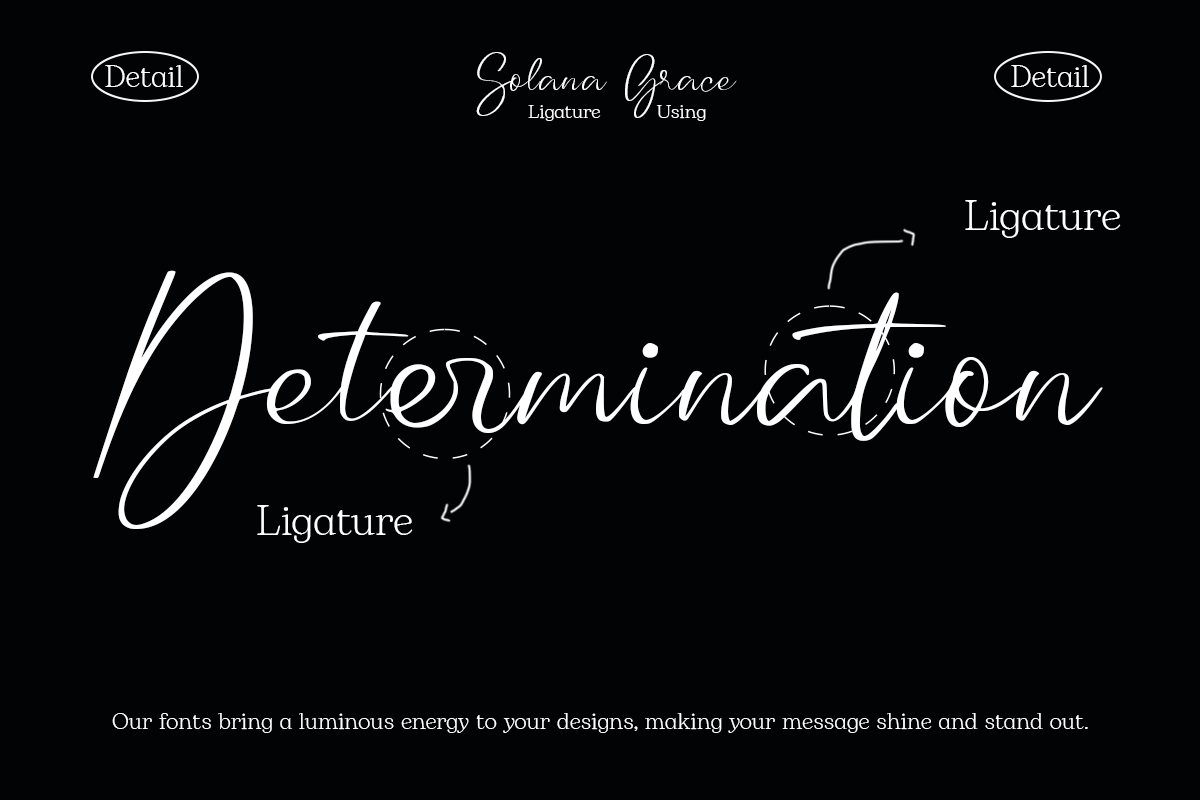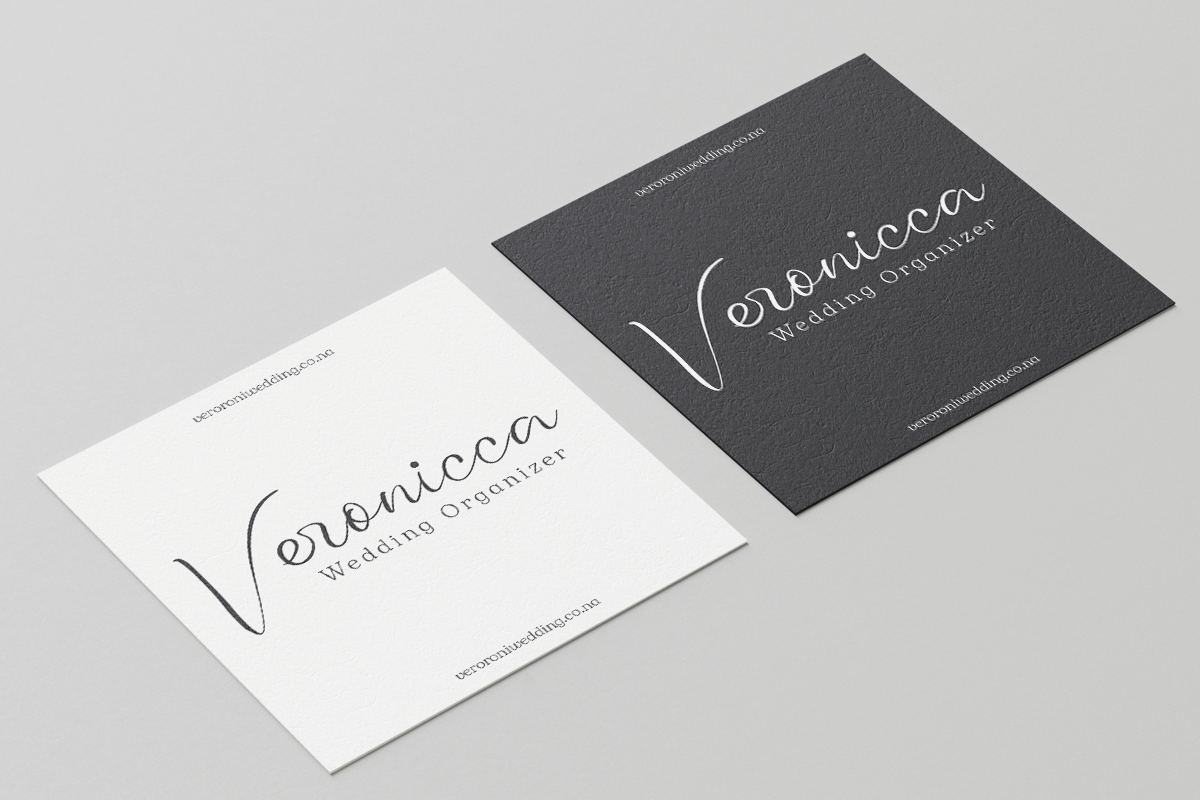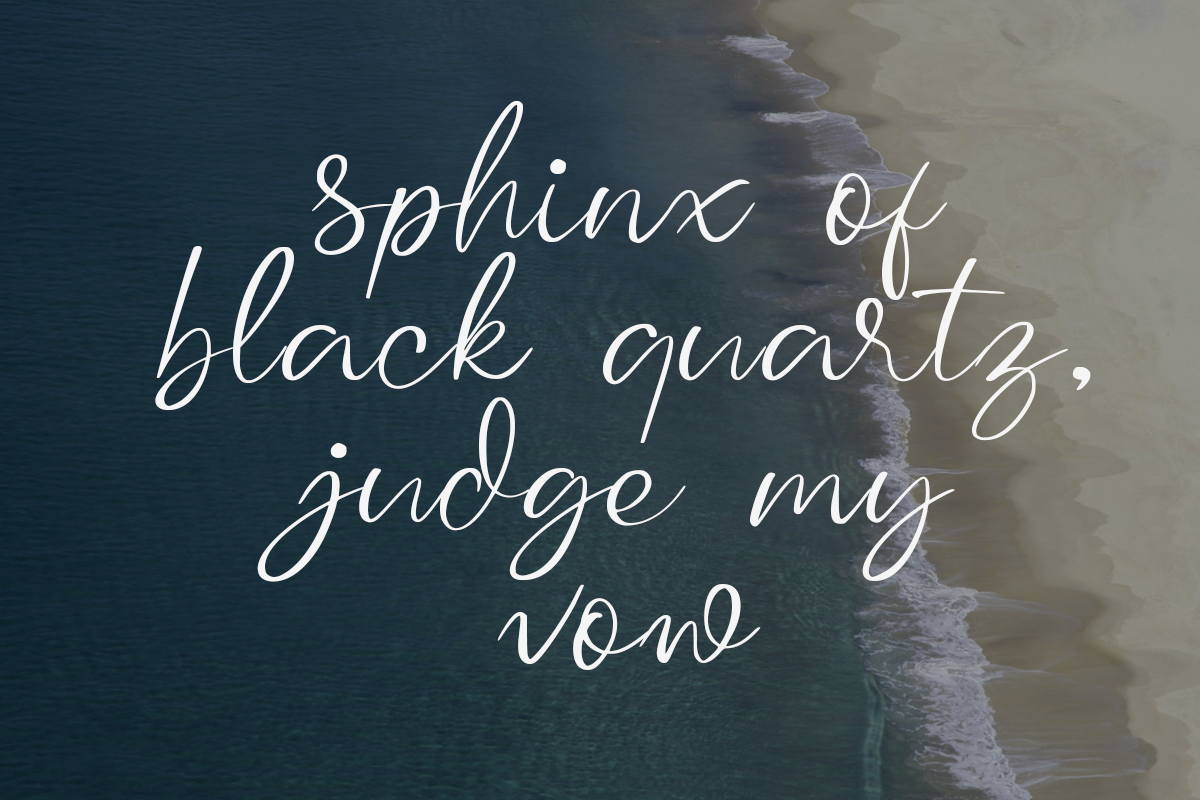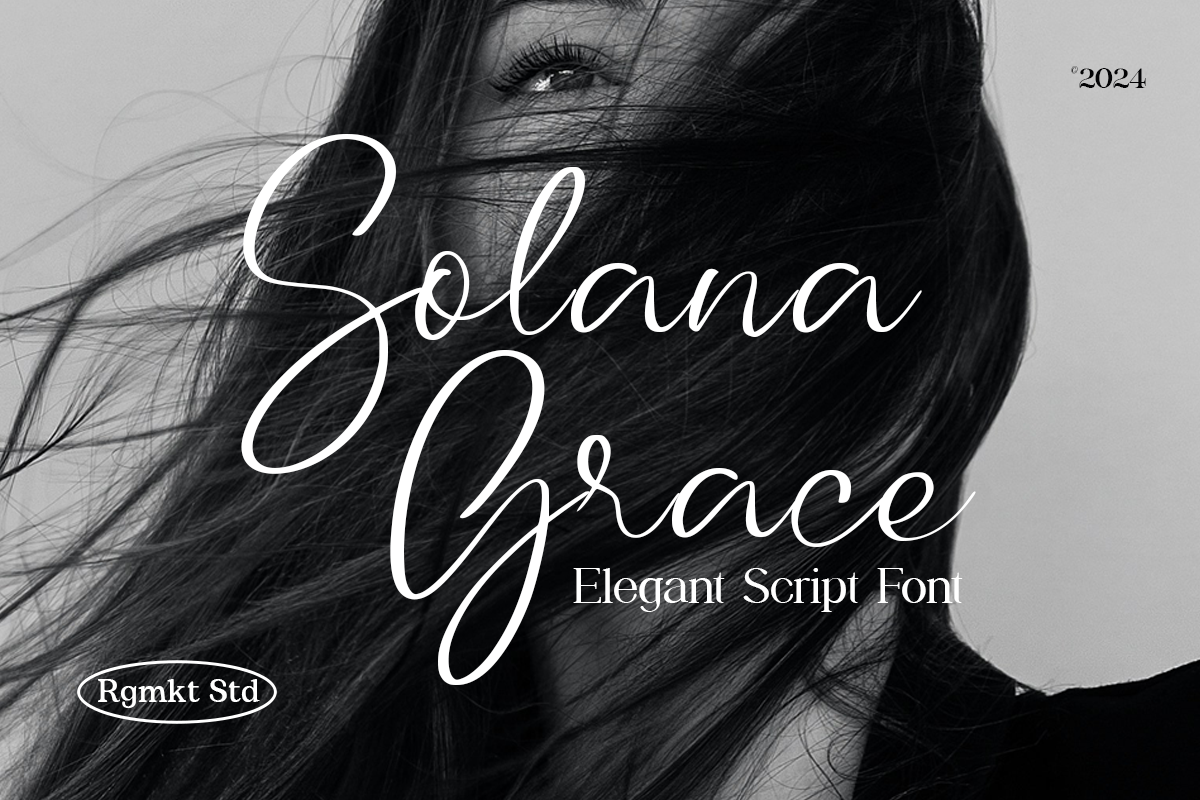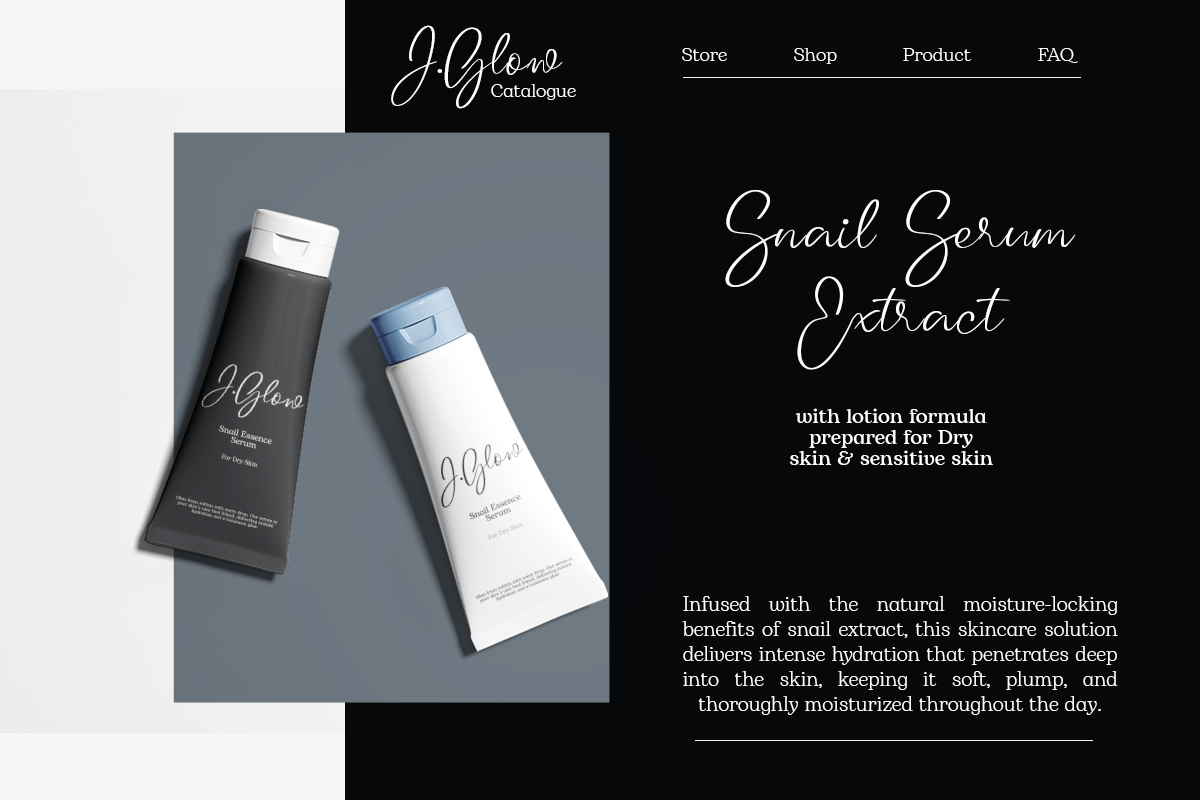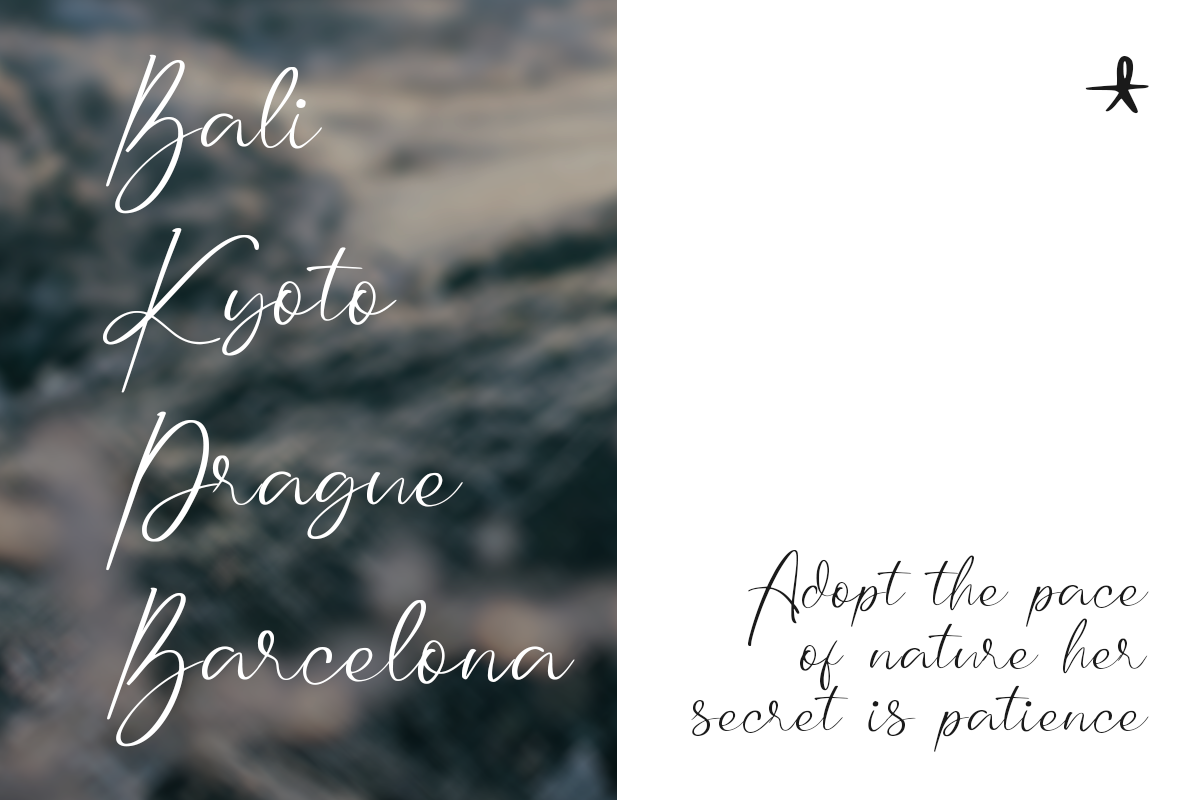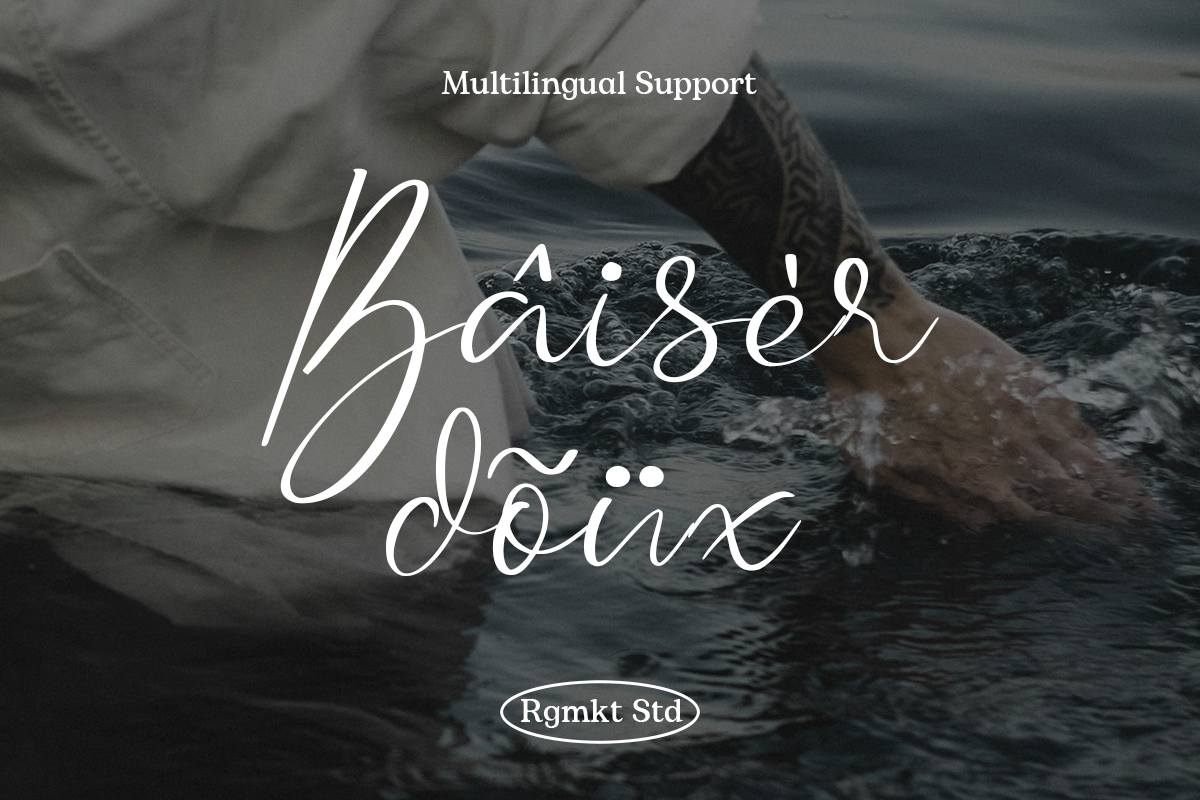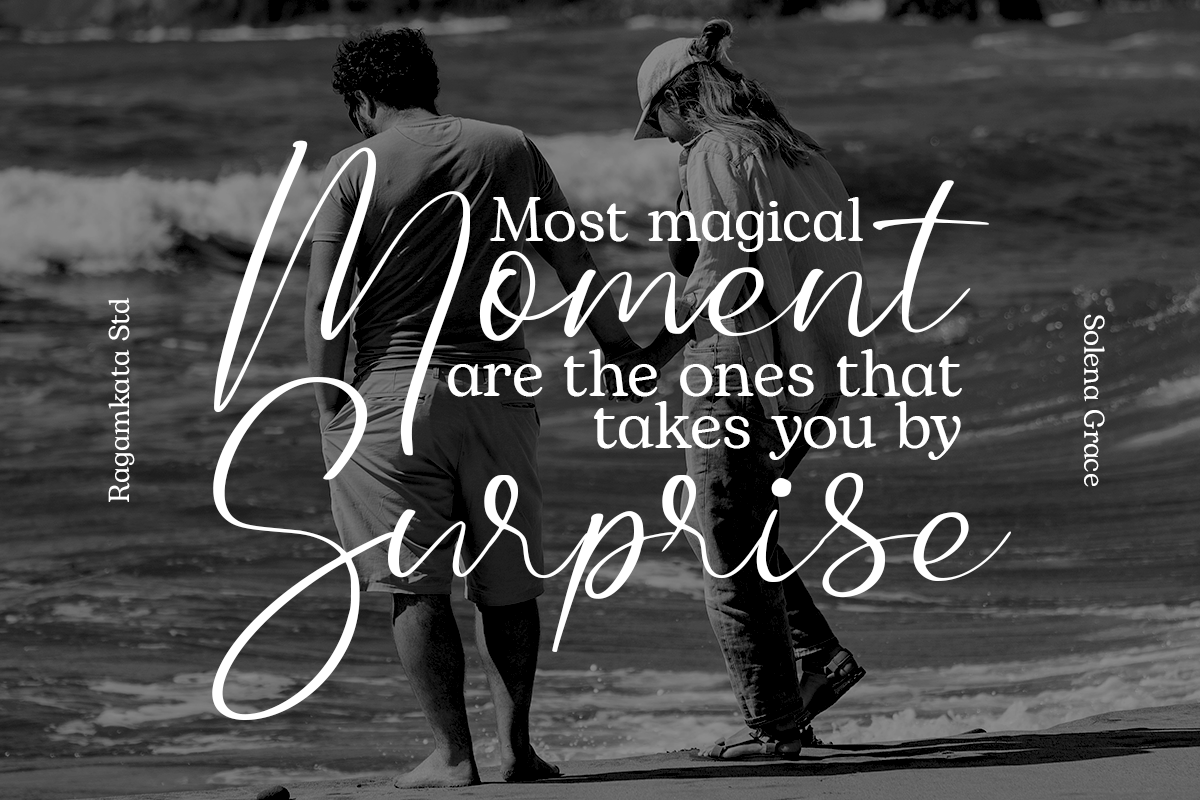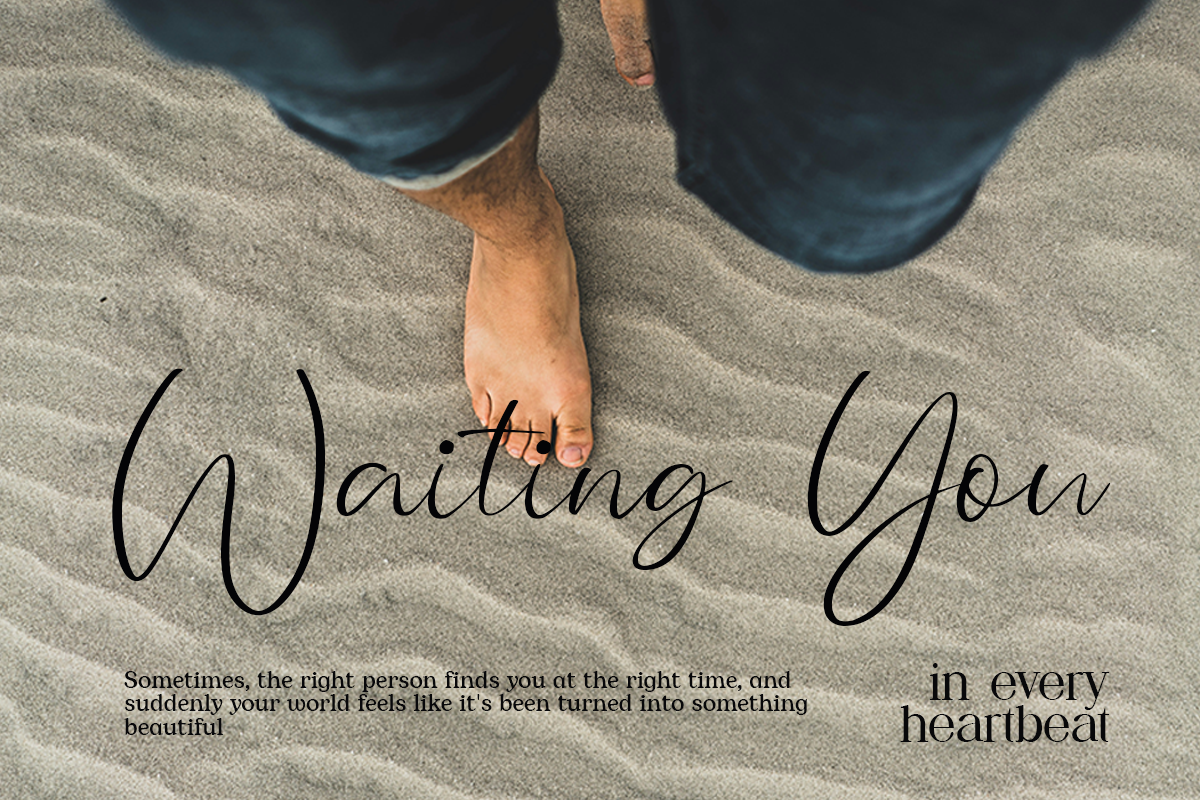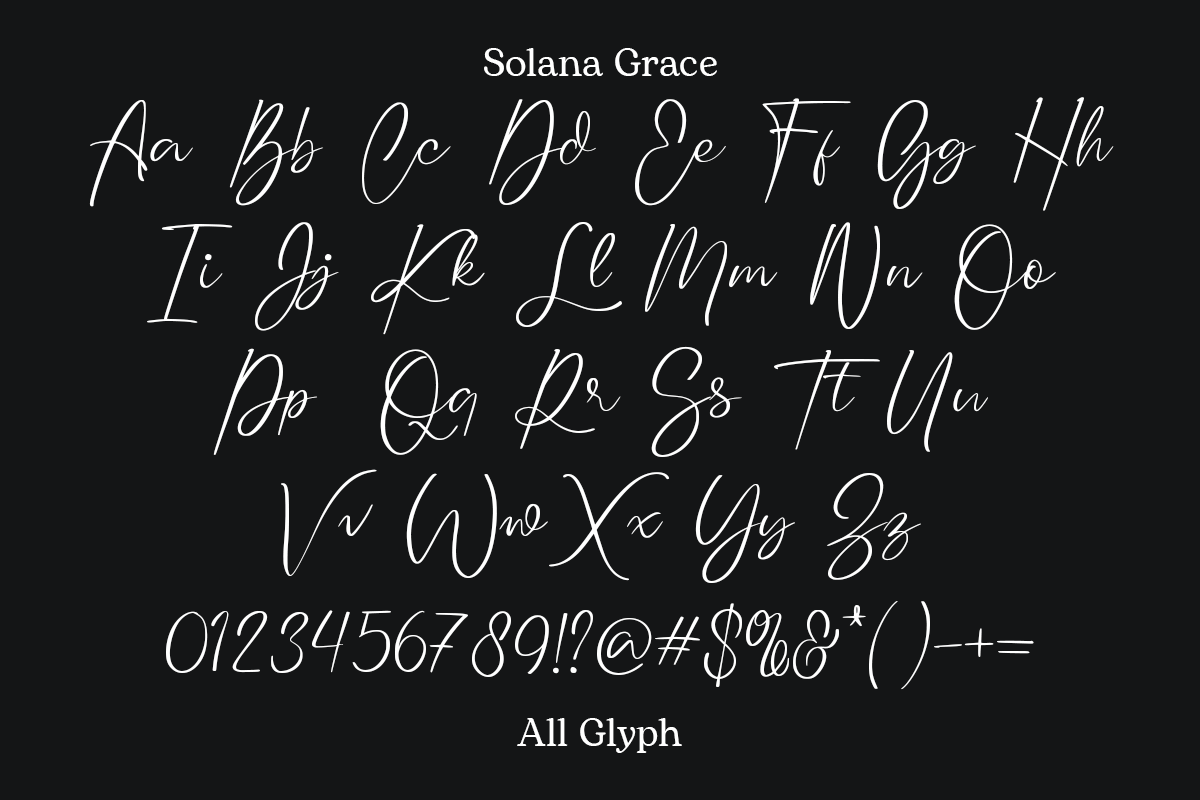
Solana Grace – Elegant Script Font
Solana Grace is a sophisticated and stylish script font, designed to bring a sense of elegance and charm to your creative projects. With its smooth, flowing curves and graceful letterforms, this font is perfect for designs that require a touch of refinement and beauty. Solana Grace offers an exquisite balance between modern aesthetics and classic script design, making it versatile for both formal and creative applications. Elevate your designs with this charming typeface that embodies sophistication and grace